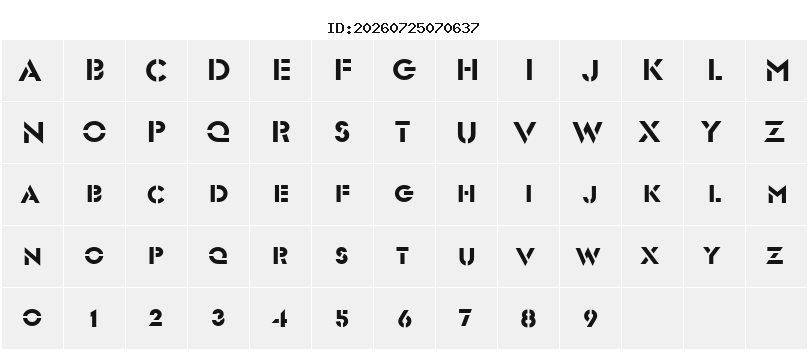
Glaser Becker Stencil Caps Preview
• Font Name: Glaser Becker Stencil Caps
About Glaser Becker Stencil Caps.ttf
Glaser Becker Stencil Caps.ttf is a modern, elegant sans-serif font designed for ultimate readability and visual harmony. Perfect for branding, headlines, web design, and print materials.